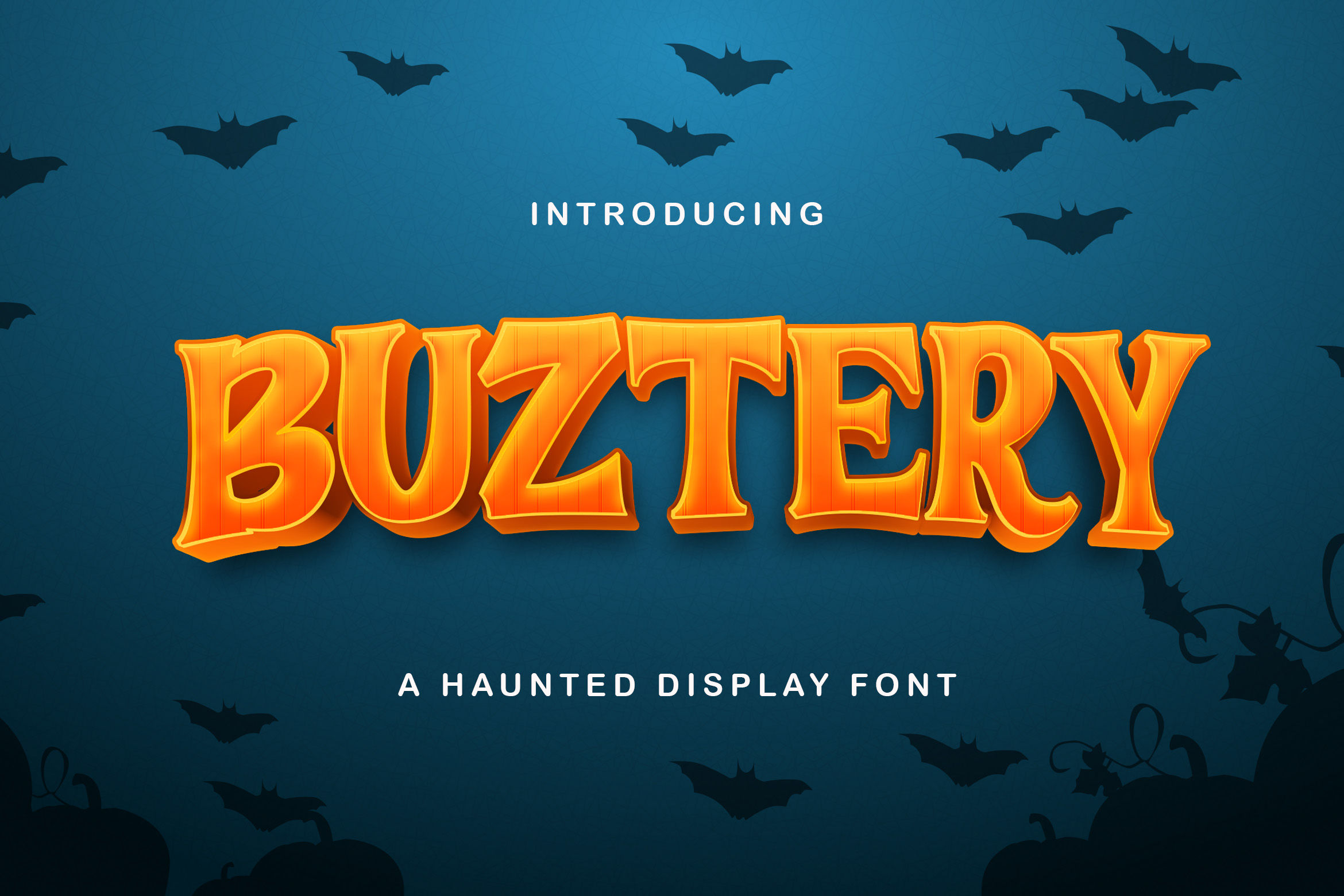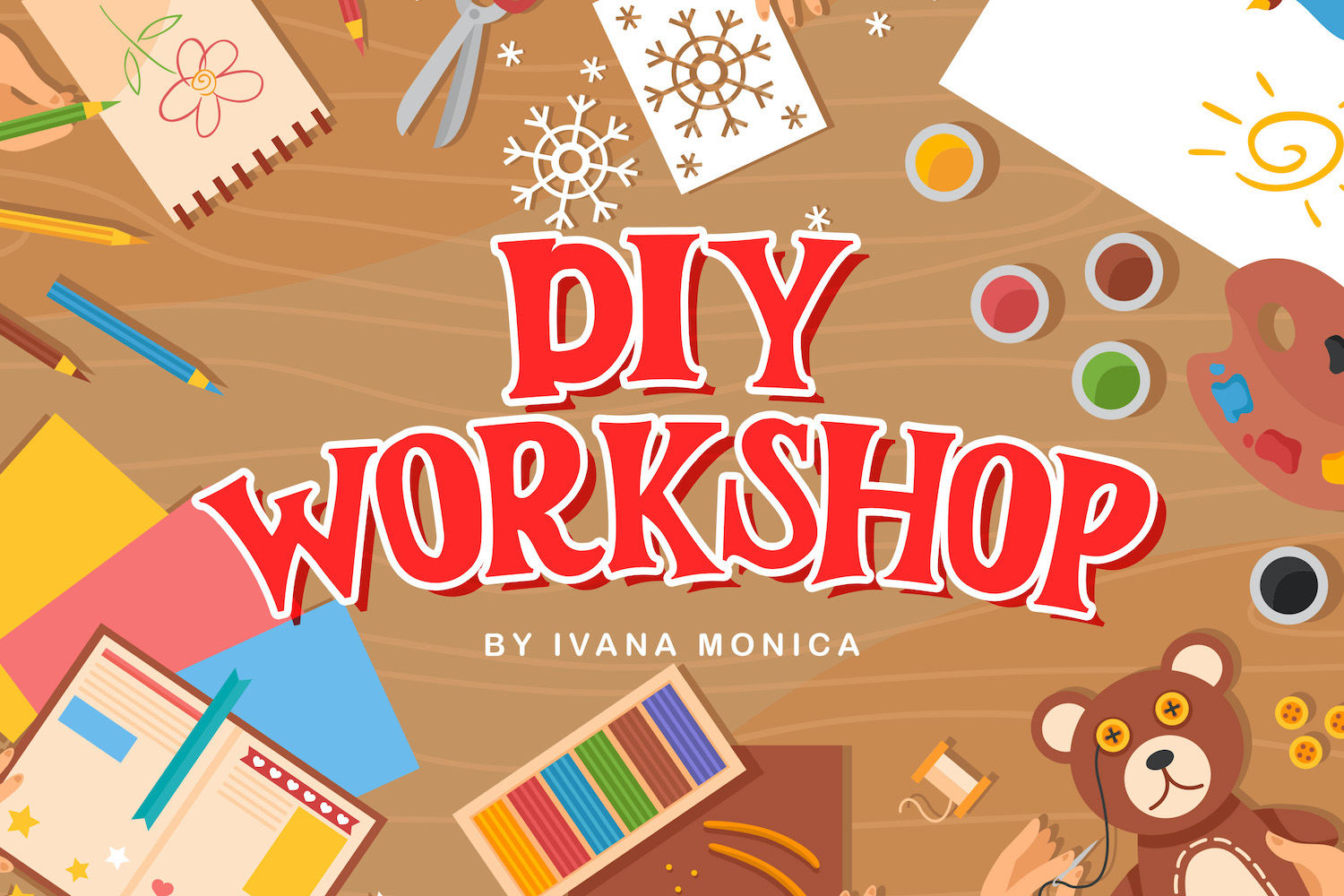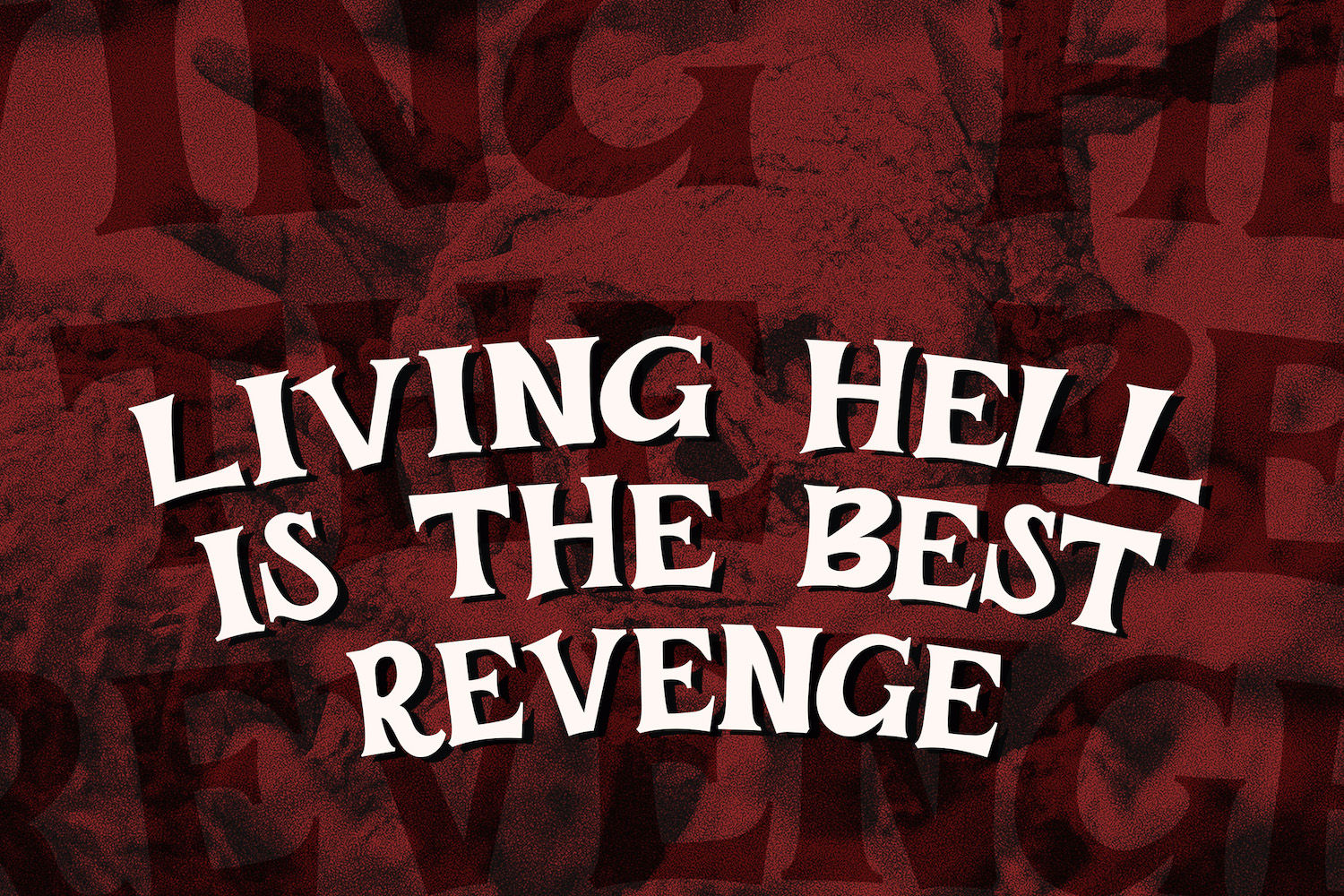
Buztery
BUSTERY is display font with horror and scary style. Virgo Display has unique design taste that we combine with decorative horror style. The Virgo Display is perfect for your any horror project!